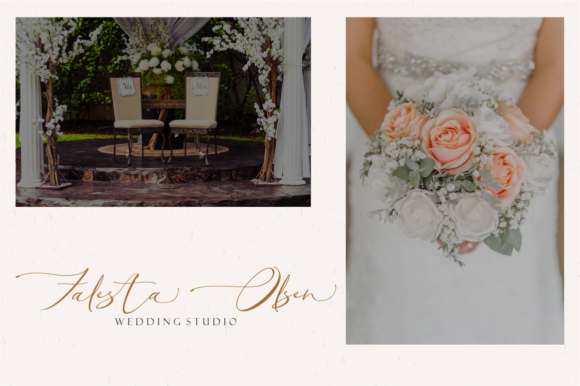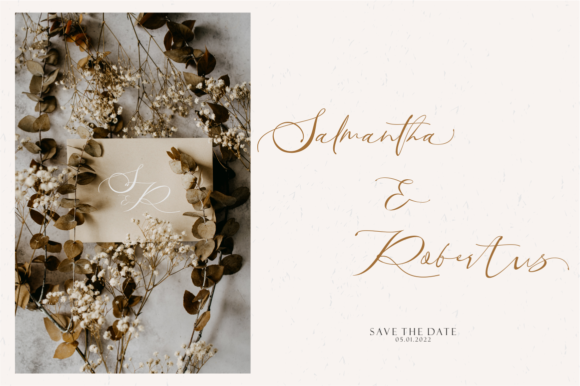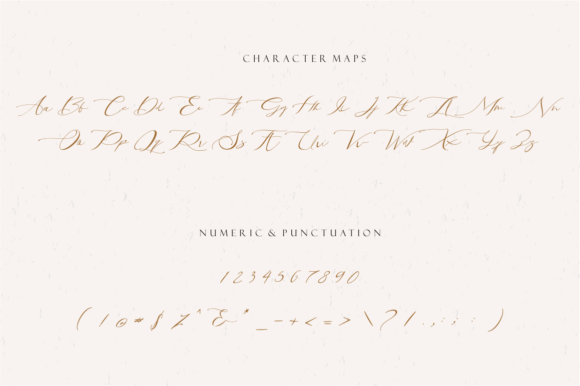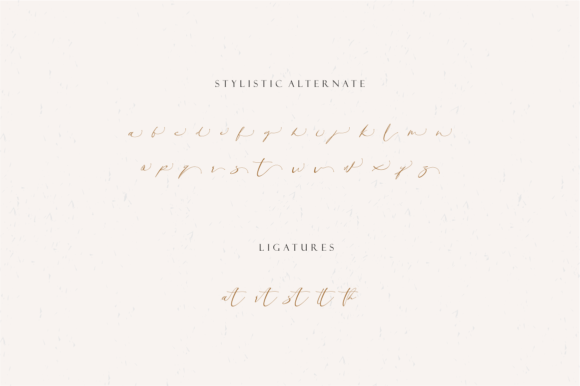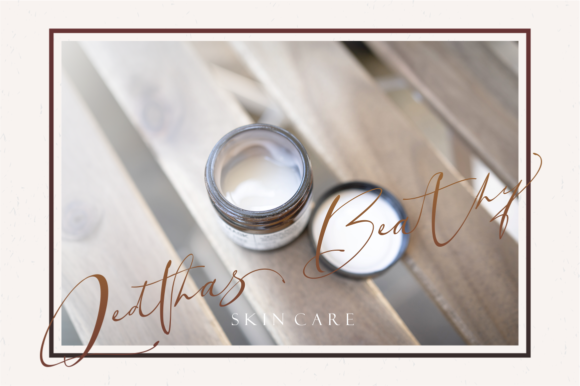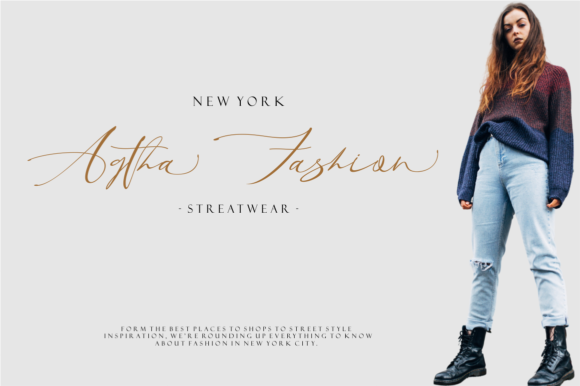
Introduction to Santhania Font Font
Fonts play a crucial role in design, and the Santhania Font font is a typeface that brings both character and versatility to any project. Whether you’re working on a branding project, a website, or a print design, the Santhania Font font offers a unique style that can elevate your work.
Santhania is an elegant script font with a contemporary atmosphere and impeccable form, inspired by timeless classic calligraphy.
Key Features of Santhania Font Font
Why Choose Santhania Font Font?
The Santhania Font font is more than just a typeface – it’s a design tool that helps you communicate your message with style and clarity. Its unique character set and versatile design make it suitable for a wide range of applications, from elegant invitations to bold headlines.
With its carefully crafted letterforms and balanced proportions, the Santhania Font font ensures readability and visual appeal across all mediums.
What makes Santhania Font font special?
The Santhania Font font stands out with its unique design, exceptional readability, and versatility across various design applications.